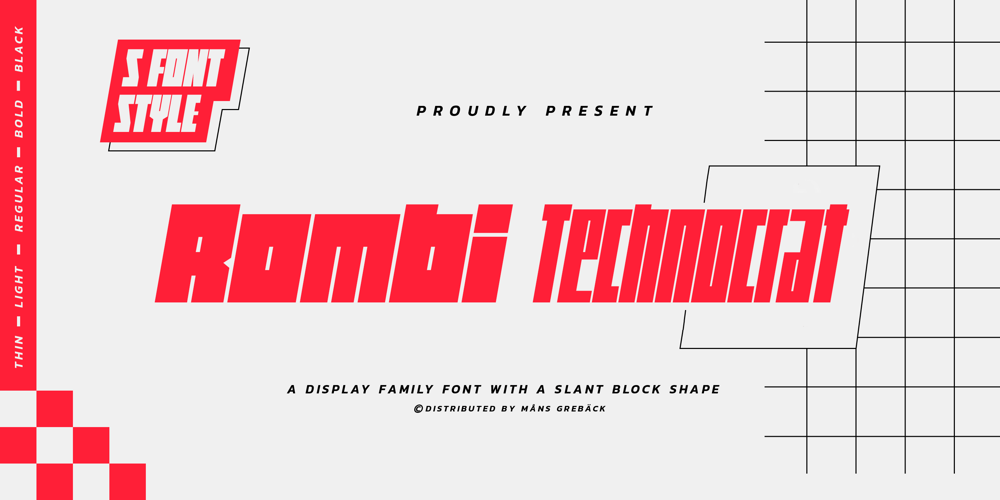
Rombi Technocrat Font Family was designed by Måns Grebäck and published by Mans Greback. Rombi Technocrat contains 5 styles and family package options. Rombi Technocrat is a geometric, heavy font that features a unique combination of square shapes and slanting angles. Inspired by the dynamics of forward movement and the rigidity of structured design, this italicized font family brings a sense of purpose and direction to your creative projects.The Rombi Technocrat font family includes five weights: Thin, Light, Regular, Bold, and Black, providing a broad range of stylistic options for designs that call for a distinct, angular touch.The font is built with advanced OpenType functionality and has a guaranteed top-notch quality, containing stylistic and contextual alternates, ligatures, and more features; all to give you full control and customizability. It has extensive lingual support, covering all Latin-based languages, from Northern Europe to South Africa, from America to South-East Asia. It contains all characters and symbols you’ll ever need, including all punctuation and numbers.